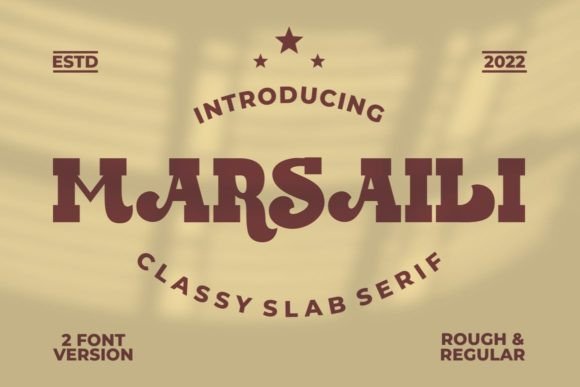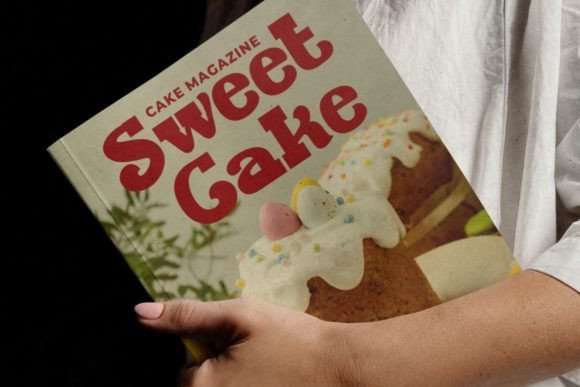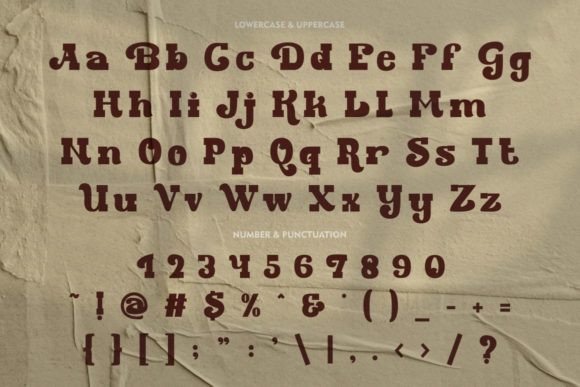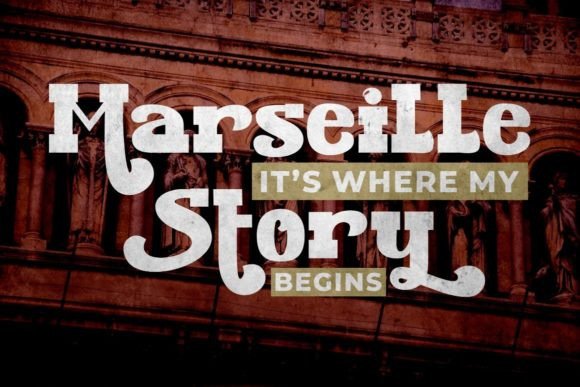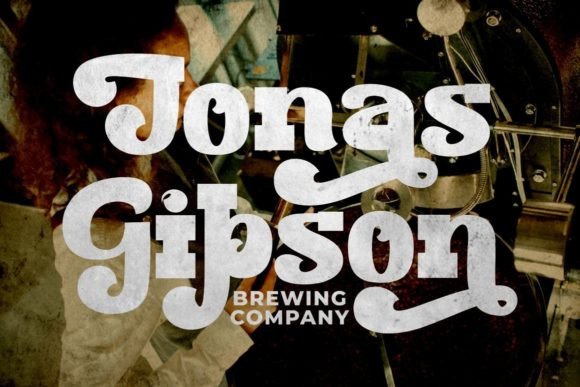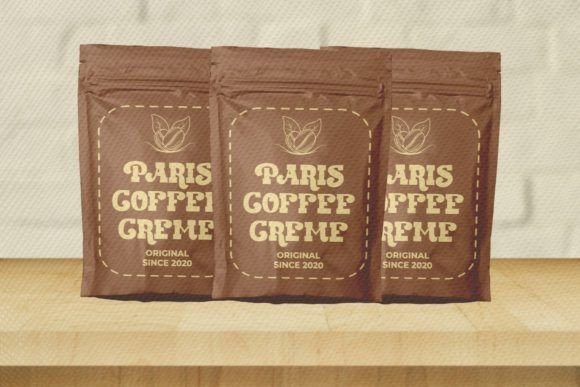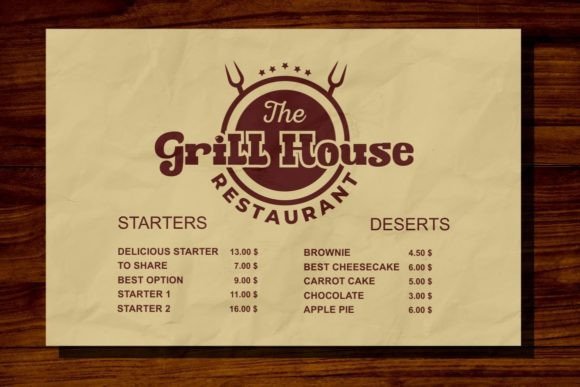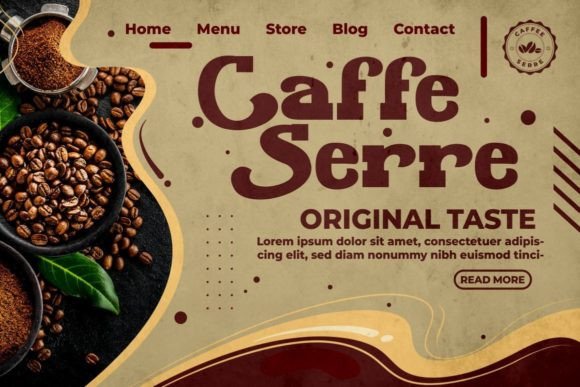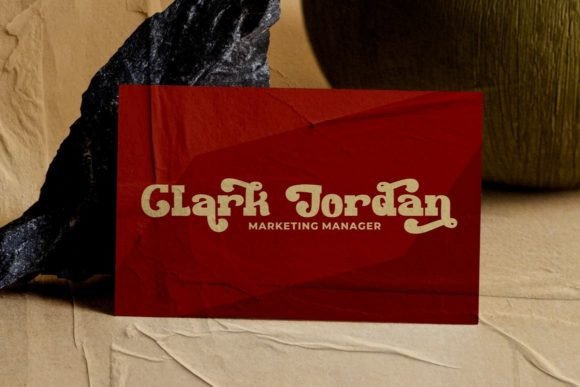
Marsaili
Marsaili: A Classy Bold Vintage Serif Font
Marsaili is a versatile bold serif font that captures the spirit of 60s and 70s design. This classy typeface combines vintage style with modern functionality through its beautiful ligatures, alternative glyphs, and multilingual support.
Key Features of Marsaili
• Bold Design: Offers strong, impactful letterforms.
• Vintage Character: Brings groovy 60s/70s style.
• OpenType Features: Includes numerous alternates and ligatures.
• Multilingual Support: Adapts to various language needs.
Best Uses for Marsaili
Thanks to its versatile characteristics, Marsaili works especially well for:
When using Marsaili in your designs, keep these tips in mind:
• Explore OpenType features to access alternative glyphs.
• Use its bold style for impactful headlines.
• Let its vintage character enhance retro-inspired projects.
• Take advantage of its versatility for various applications.
To sum up, Marsaili is an excellent choice for designers seeking a bold and classy vintage serif font. Its versatility makes it perfect for various creative projects. Whether you’re creating headlines, designing posters, or developing product packaging, Marsaili offers the perfect blend of retro style and modern functionality.
Furthermore, Marsaili’s distinctive design allows it to shine in contexts where both boldness and vintage appeal are key. From social media content to greeting cards, this font can elevate your projects with its groovy style. Also, its clean yet unique appearance works particularly well in designs that aim to make a bold, vintage impact.
In conclusion, Marsaili truly captures the essence of 60s and 70s design in bold serif typography. Its combination of beautiful ligatures and alternative glyphs shows how well it can serve various creative needs. Therefore, for those wanting to add a touch of vintage sophistication to their work, Marsaili can transform any design with its distinctive style. Ultimately, it’s perfect for designers aiming to make a classy, bold impact across creative projects.